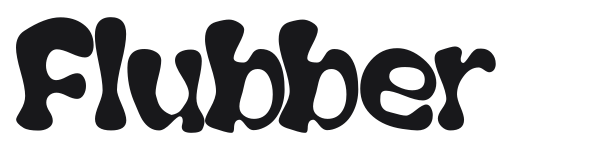
Thickhead
by Scotty Ulrich
Thickhead is a fat, funky display face from Scotty Ulrich with bulging organic letterforms that ooze 1970s energy. The strokes are uniformly thick and curvy, giving every word a loose, playful bounce that feels right at home on gig posters, vintage-inspired packaging, and retro branding. It's all personality, built for headlines where subtlety would be a waste.